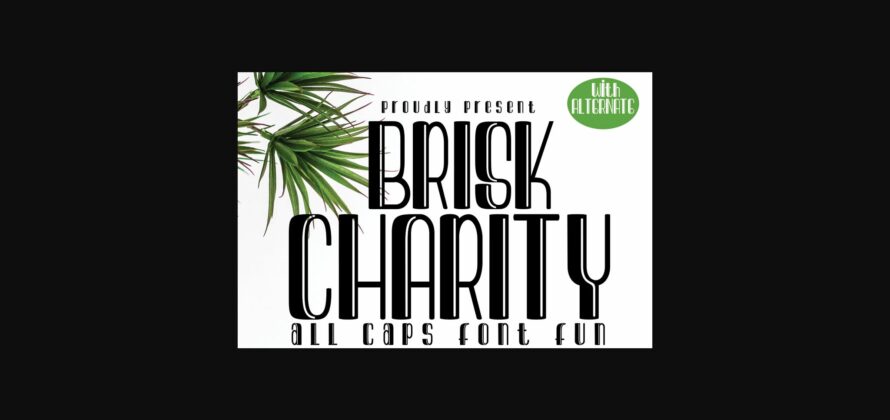
About Brisk Charity Font
Brisk Charity is a cute and casual handwritten font with an incredibly friendly feel. Whether you’re looking for fonts for Instagram or calligraphy scripts for DIY projects, this font will turn any creative idea into a true piece of art!